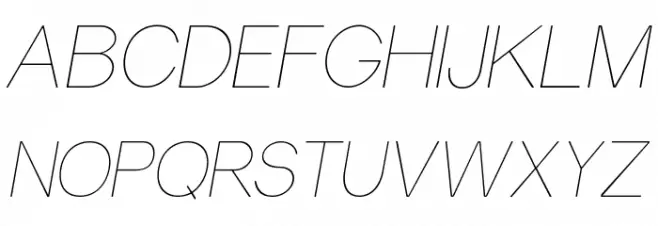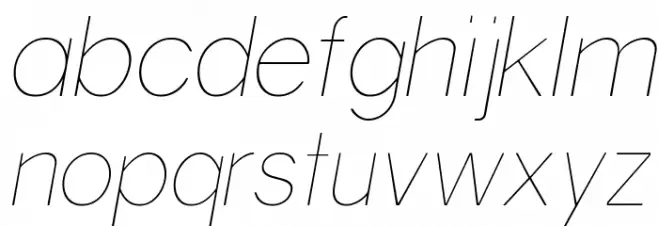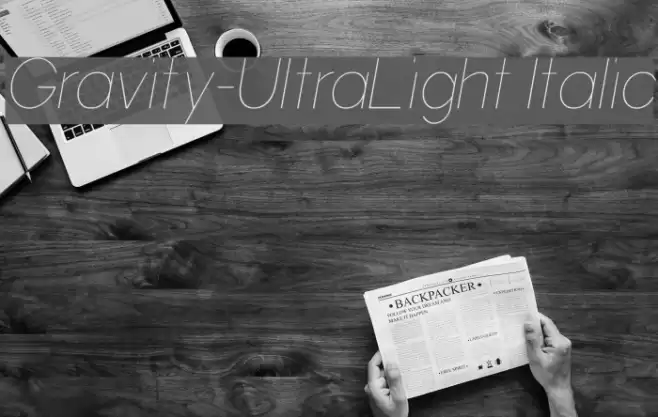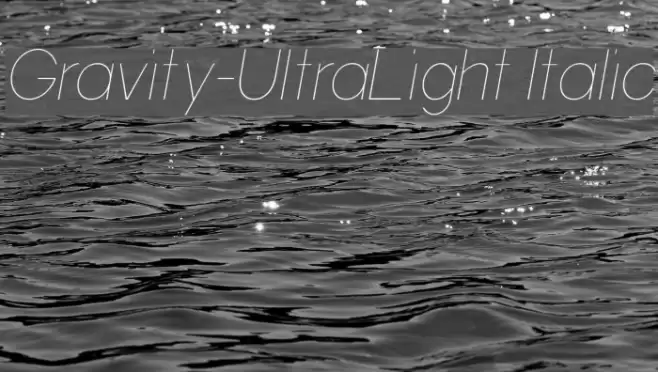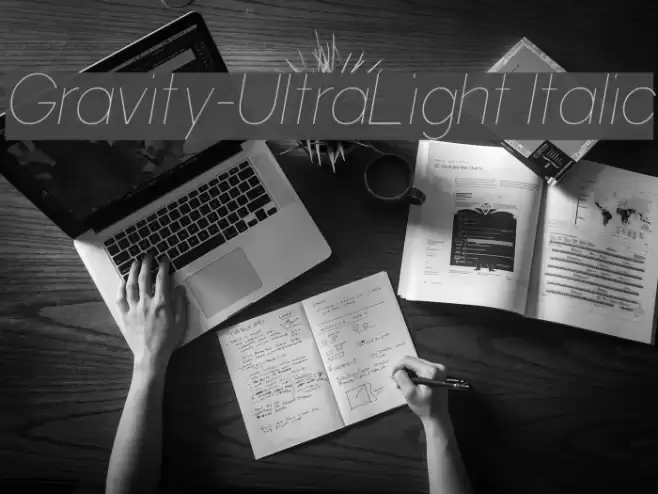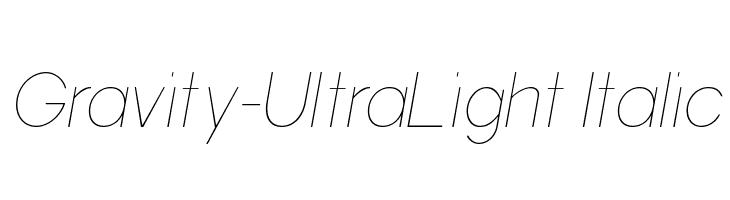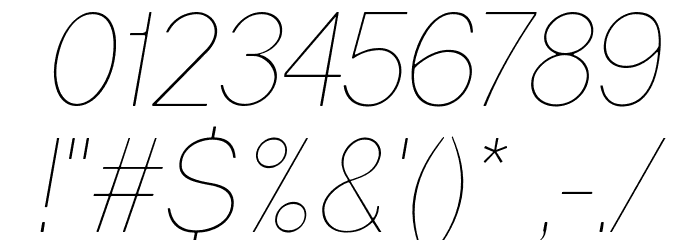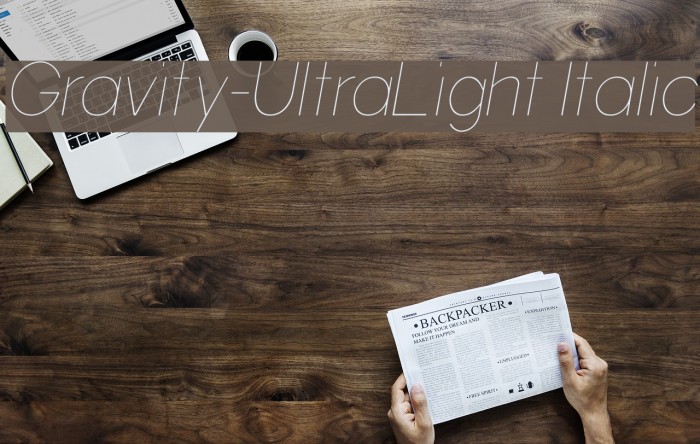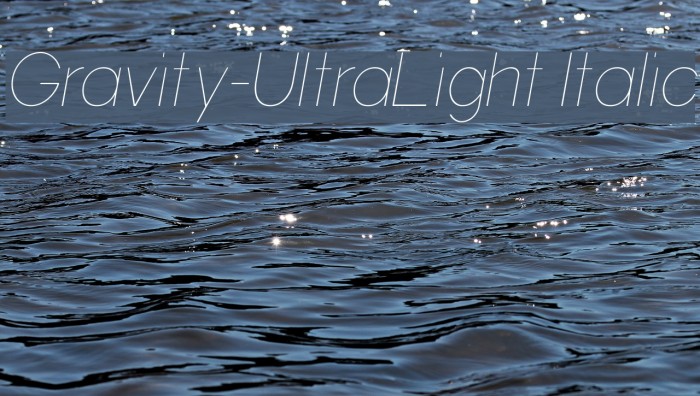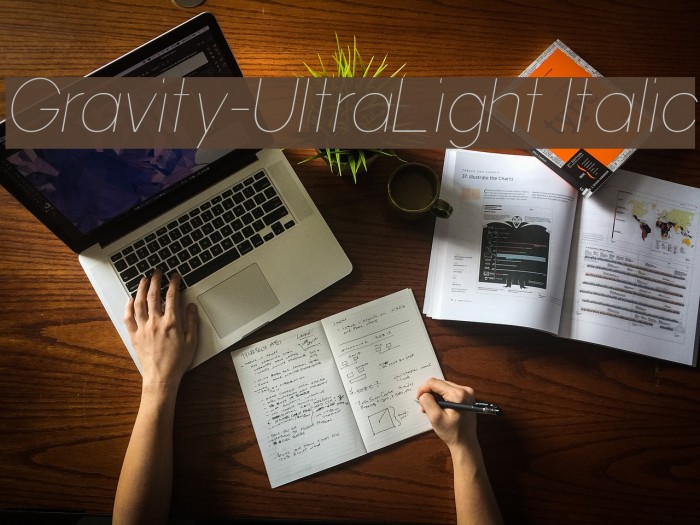
Gravity-UltraLight Italic
This font features an ultra-lightweight design with a sleek and modern aesthetic. Its italic style gives it a dynamic and fluid appearance, making it ideal for contemporary design projects. The characters are elegantly elongated with a consistent stroke width, providing a sense of sophistication and minimalism. The spacing between characters is generous, enhancing readability while maintaining a stylish look. Its clean lines and subtle curves make it suitable for a variety of applications, from digital interfaces to print media.
A sleek, ultra-light italic font with a modern and minimalistic style.
- Proposed Projects: Ideal for fashion magazines, modern branding, digital interfaces, and minimalist design projects.
- Weight: Light
- Character Spacing: Wide
- Use Case: Headlines, Logos, Digital interfaces